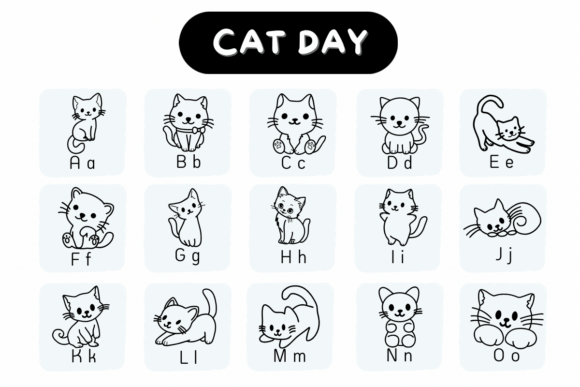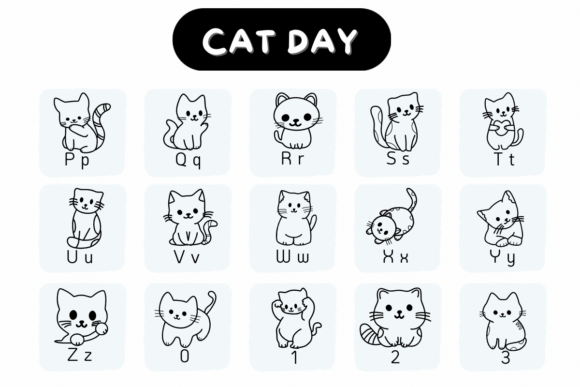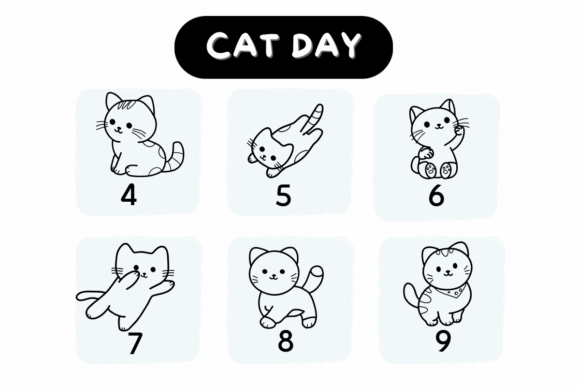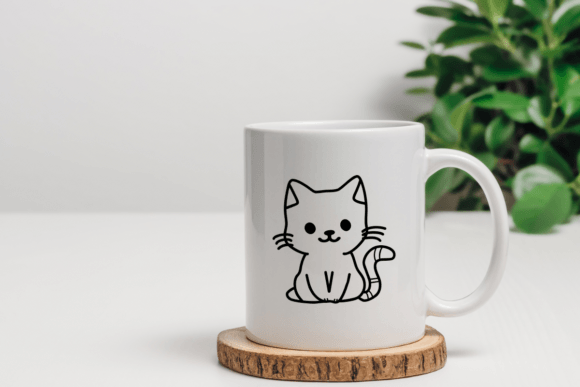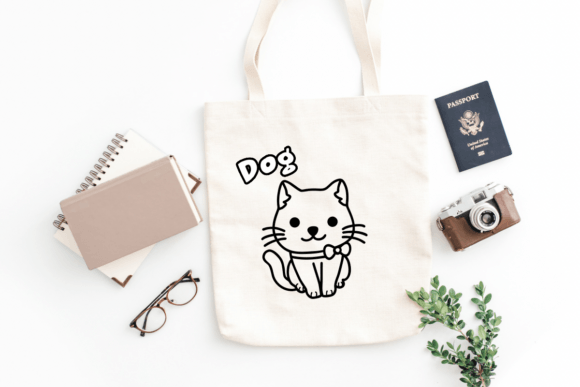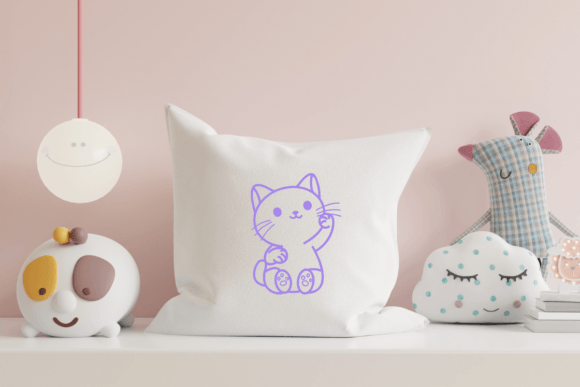
Introduction to Cat Day Font
Cat Day is a playful dingbat font filled with cute cat images.
Each letter features different cat designs, making it perfect for cat lovers and fun projects .
Key Features of Cat Day Font